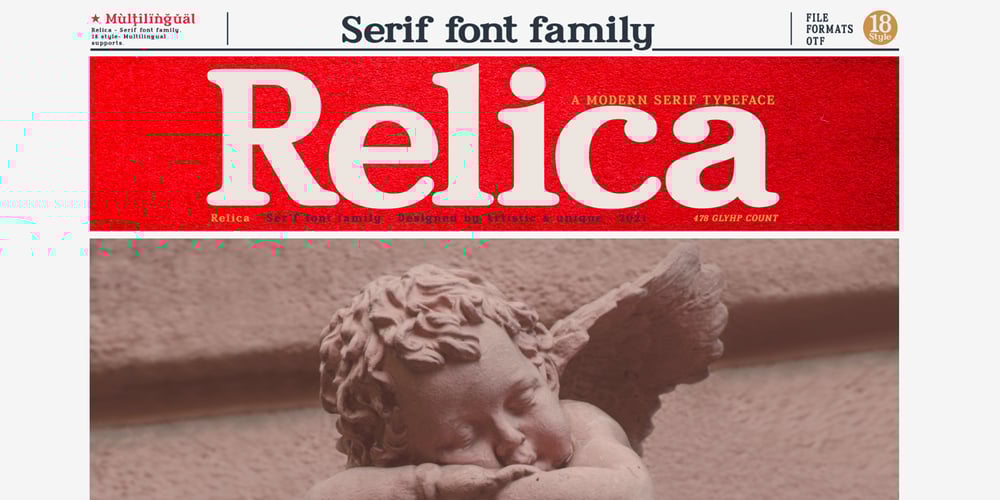
Relica Font Family was designed by Osman Taner Kucukgenc and published by Artisticandunique. Relica contains 18 styles and family package options. Relica – Serif font family – Multilingual support, 18 StyleRelica serif font family has an elegant character with smooth curved turns. If you want to try a modern or classic, elegant look, it can meet all your needs with its timeless structure that is ideal for your projects in capital and small letters.Relica serif font family ensures good overall appearance and easy reading of texts while creating your projects especially in publishing. With its soft curved turns, it is also ideal for branding, logo design, brand identity creation, packaging design.This font comes with uppercase, lowercase, punctuation marks, symbols and numbers, ligatures, and multilingual options.With this font you can create your unique designs.If you have a question, please contact me.Have a good time.